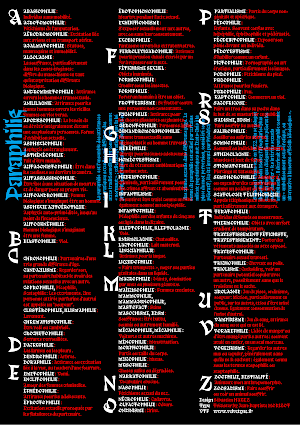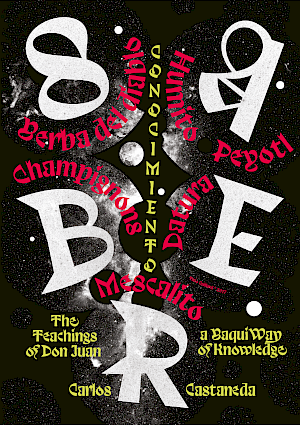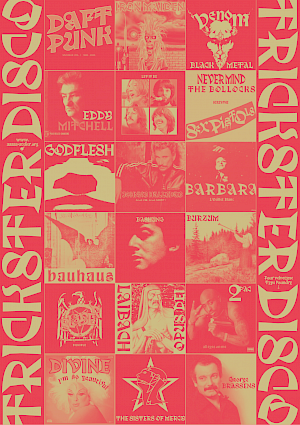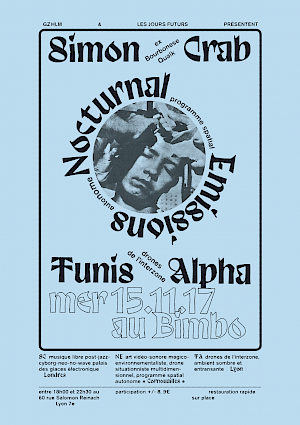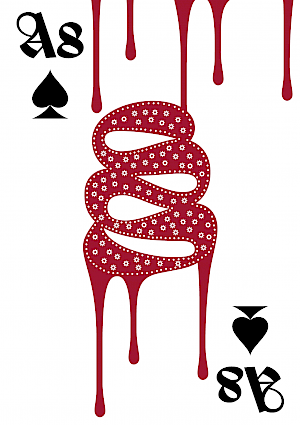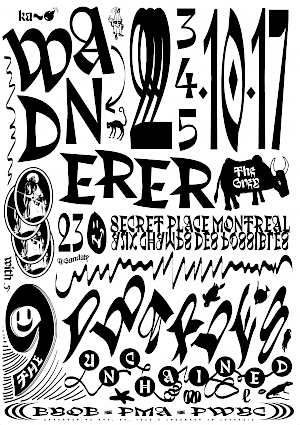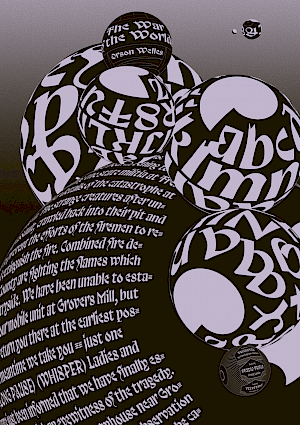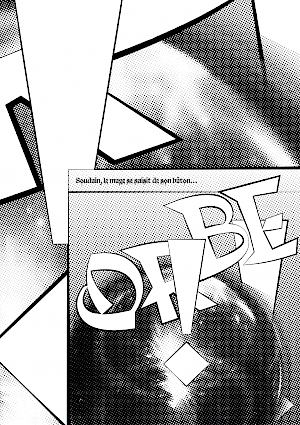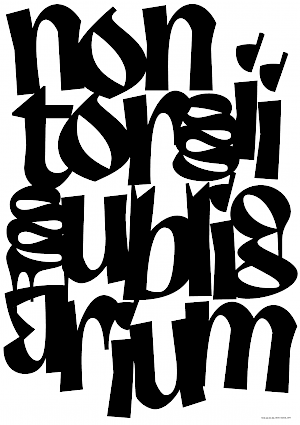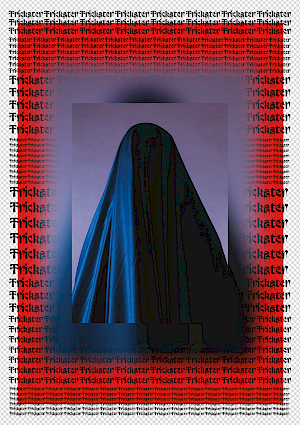
Trickster
According to Wikipedia, in mythology, and in the study of folklore and religion, a trickster is a character in a story (god, goddess, spirit, man, woman, or anthropomorphic creature), which exhibits a great degree of intellect or secret knowledge, and which uses it to play tricks or otherwise disobey normal rules and conventional behaviour. So that's the origin of the name of this typeface.